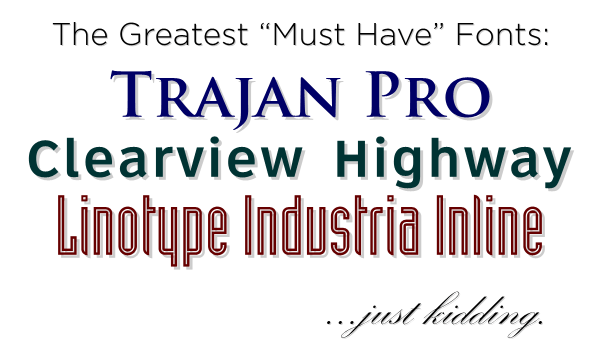
OK, what fonts are a must have
and which ones should I never use?
We are going to try and put together a list of fonts to use tonight and would like to have some feedback on what works and what doesn't.
If there is a Font that works but only at certain times that would also be helpfull.
We want to do this right, we do good work but need to learn more on the lay-out side of things.
What works and what does not.
Wrong question. You should ask 'How do I become sufficiently adept that I'll know the answer to that question?" instead.
Every one who's worth the powder to blow them across the street has a defiinitive style and uses typefaces that complement that style. Not vice versa. And not a whole hell of a lot of faces either. A journeyman signwriter needs command of only a handful of alphabets and does variations on those ad infinitum. In dealing with typefaces, more is not necessarily better.
What faces? The differ with the individual. The better you get at it the more faces you'll be competent to use and the less you actually will use.
As much as it pains me to say it, bob has a good point. You need to be able to look at a job and have an idea of what style of font would be most suited. THere really isn't a laundry list of fonts that are preferred - it really depends on the application. I have hundreds of fonts (I collect them like other people collect trading cards) but probably only use a handful on a regular basis.
A couple that scream "amateur" right off the bat are comic sans and brush script, but having said that there are jobs I have used them on because they were suited to the job... as you get a handle on your design skills you will learn what style of font would look best.
Personal opinion - I love the fonts Steve C. has put together (signfonts.com) and probably use them way more than I should - but they are generally the first set of fonts I look at for any particular job.
Helvetica, Impact and Arial Black.
lol.
Yeah man, it's all up to you. There are tens of thousands of fonts out there, and you could get by with under a hundred for the rest of your life. I have around 22,000 myself, and on a day to day basis, only use about 10 of them. It's all personal flavor man. All personal flavor...
Back in the day when signmakers were signpainters, a journeyman craftsman needed only: A good Roman (serif style) a good casual, a good block, and a darn good script. These are the four major font types. Of course there are infinite variations on these, as any sign guy will tell you. Not to mention the tons of novelty and decorative fonts.
Today, with the abundance of computer fonts available to you, you still need to select on the basis of the subject matter, feel and flavor of the sign's content.
A frilly, lacy, delicate script will not help sell manly stuff like bulldozers, nor will Impact style sell ladies lingerie.
Choose your fonts wisely. And by all means, look at magazine ads, package design, etc. You'll be able to "pick the brains" of highly paid (?) designers who spend a lot of time on this very ideal.
fonts
I agree there are tons of cool free fonts! More great fonts are DNA fonts. Dave gave me some when I was once a lettervillian. They are great. You might want to check them out.
As far as what works for you and what doesn't....that you will figure out quick enough. I have always liked antique olive nord.....floran....americana....copperplate...just to name a few. Each day I have different ones that I favor.
If you have a good design program like Corel Draw or Adobe Illustrator you will receive an abundance of really good fonts. The everyday sign making workhorse fonts for me are the Futuras and Compacta fonts as well as the Swiss family. You will want to stock up on some nice script fonts, which seam to be scarce in these font lists for the most part. We (signfonts.com) have a nice script package to start at a very reasonable price. SignDNA also has some great fonts from such sign artist as Bob Behounek and Mike Stevens. Letterhead Fonts Stanford Script, used in the Signs101 logo is probably the best contemporary script available, in my opinion. To create you own designs and layouts you won't need a lot. Where the need to maintain a large font library comes in is when you are dealing with other people’s designs.